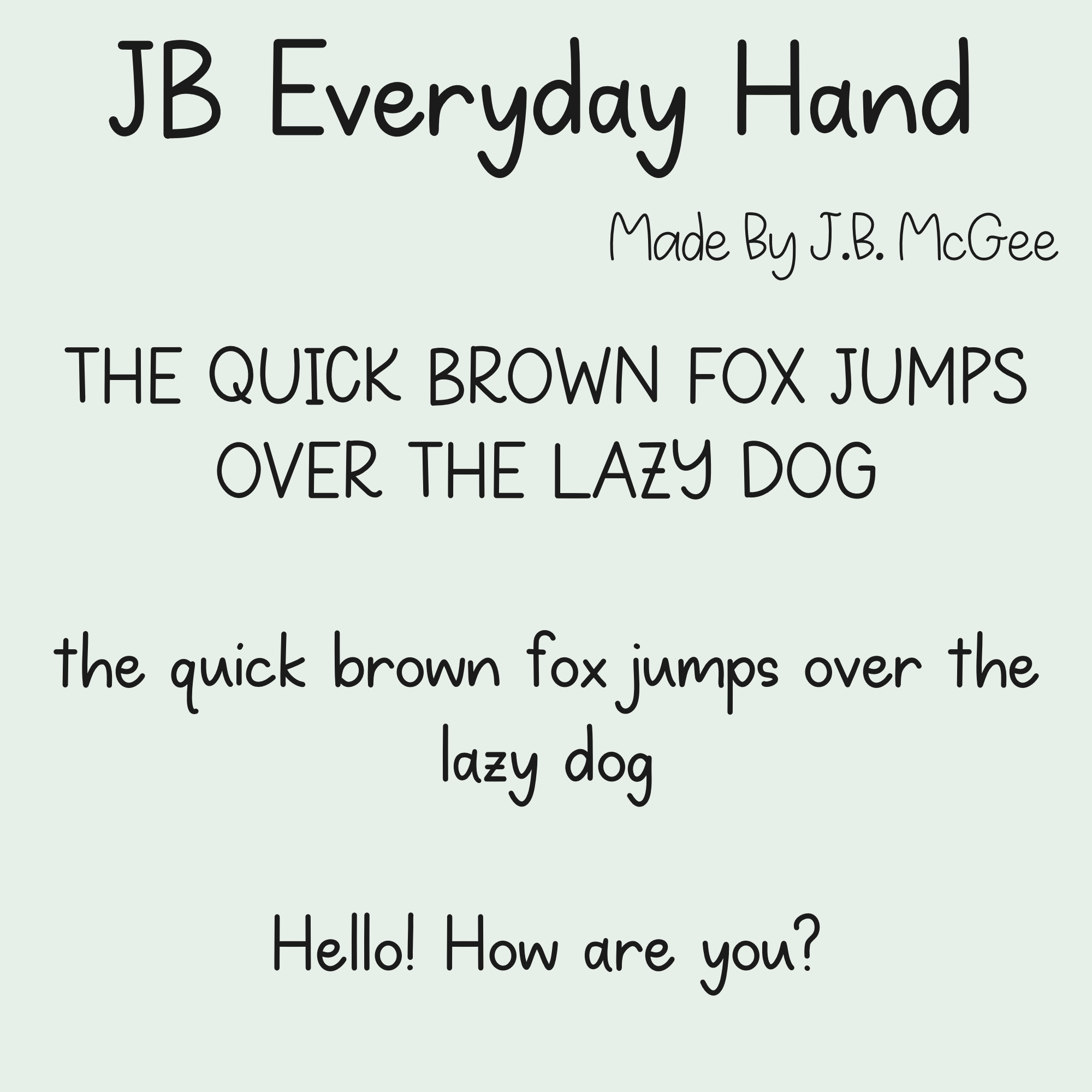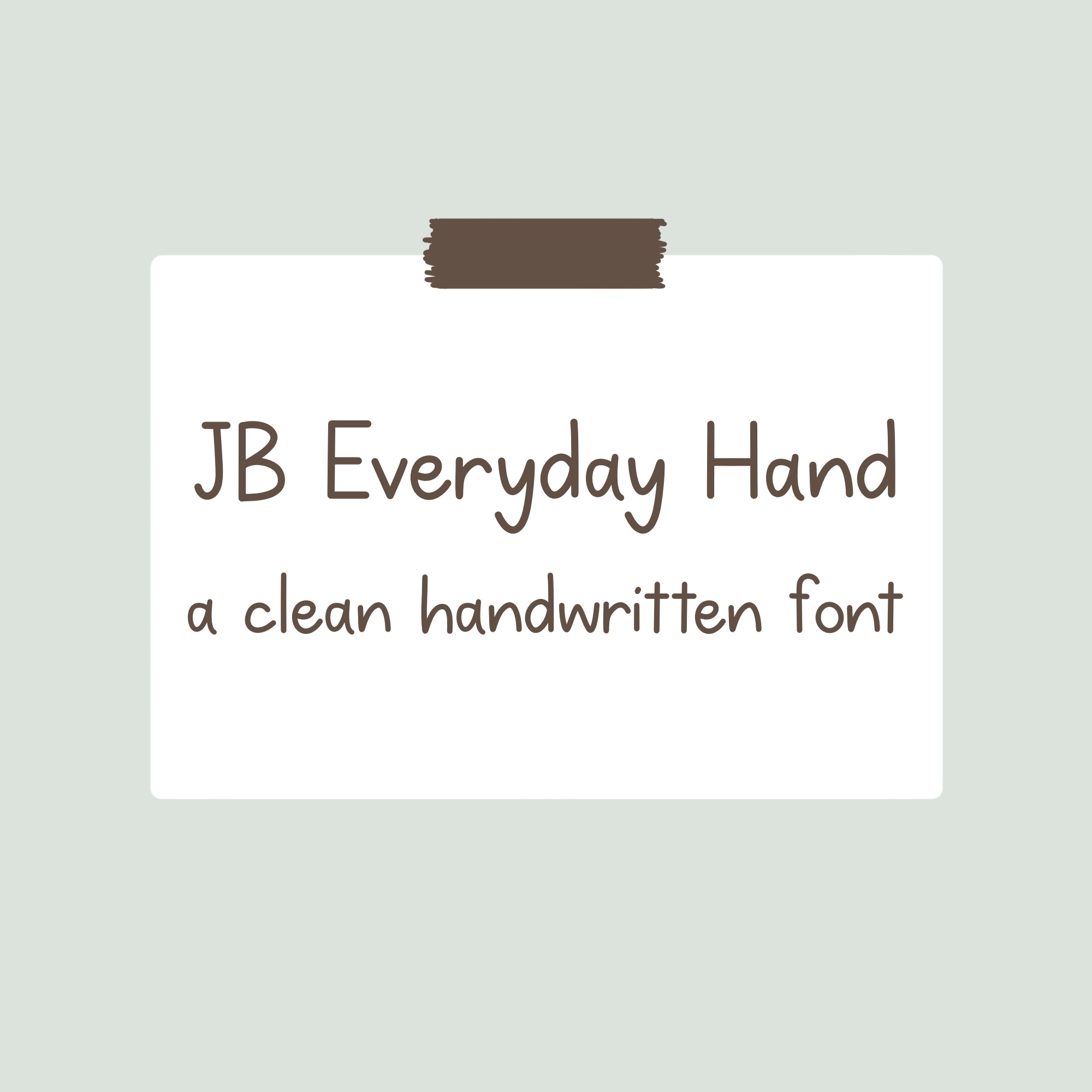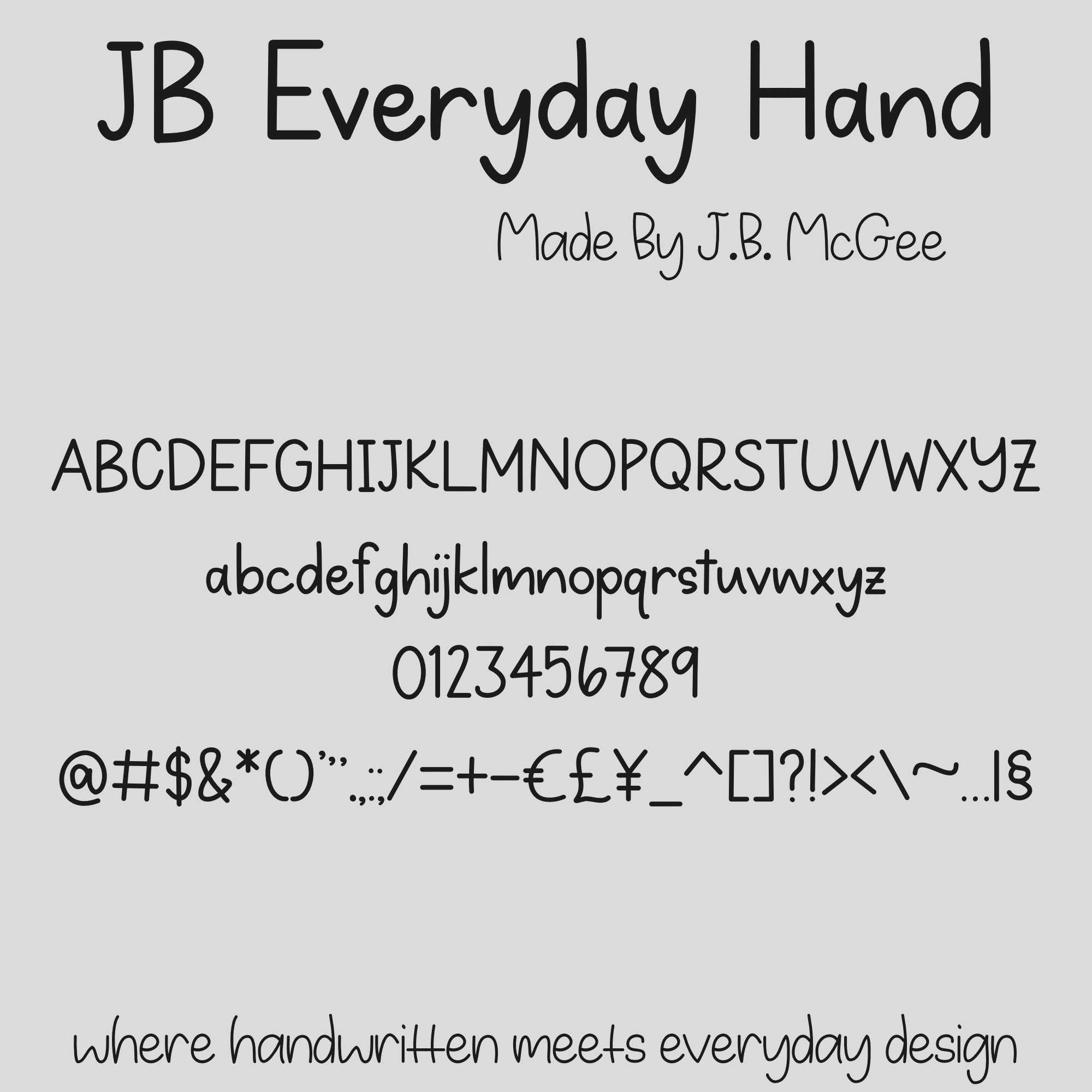
JB Everyday Hand Font
Casual Handwritten Typeface
JB Everyday Hand is a clean handwritten print font designed to feel natural, readable, and easy to use across a wide range of projects.
It keeps the warmth of real handwriting while staying consistent and polished, making it a reliable choice for both casual and professional designs. The letterforms are slightly rounded with balanced spacing, giving it a friendly look without sacrificing clarity.
This font works especially well anywhere you want a handwritten feel that still looks neat and intentional.
Perfect for:
• Teachers and classroom materials
• Worksheets and educational resources
• Branding and small business packaging
• Social media graphics
• Invitations and stationery
• Cricut and cutting machine projects
• Everyday design work
• Uppercase and lowercase letters
• Numbers and punctuation
• Extended Latin characters (accents and symbols)
Type “ƒ” for a clean double “ff” when needed.
JB Everyday Hand is designed to be simple, dependable, and easy to read, making it a go-to handwritten print font you’ll reach for again and again.